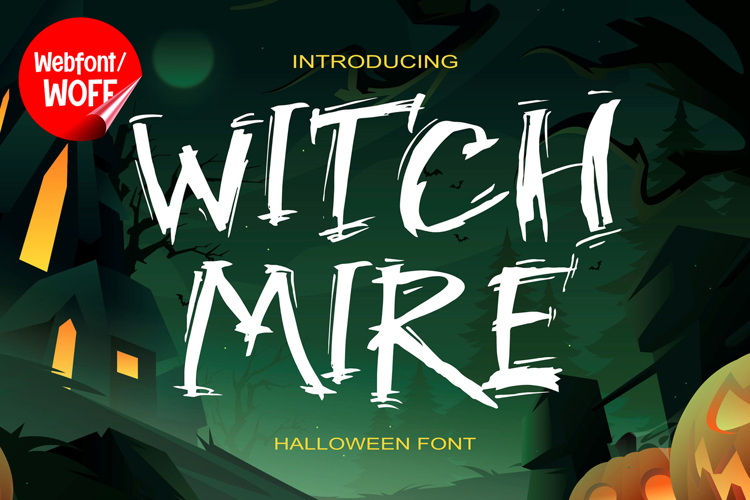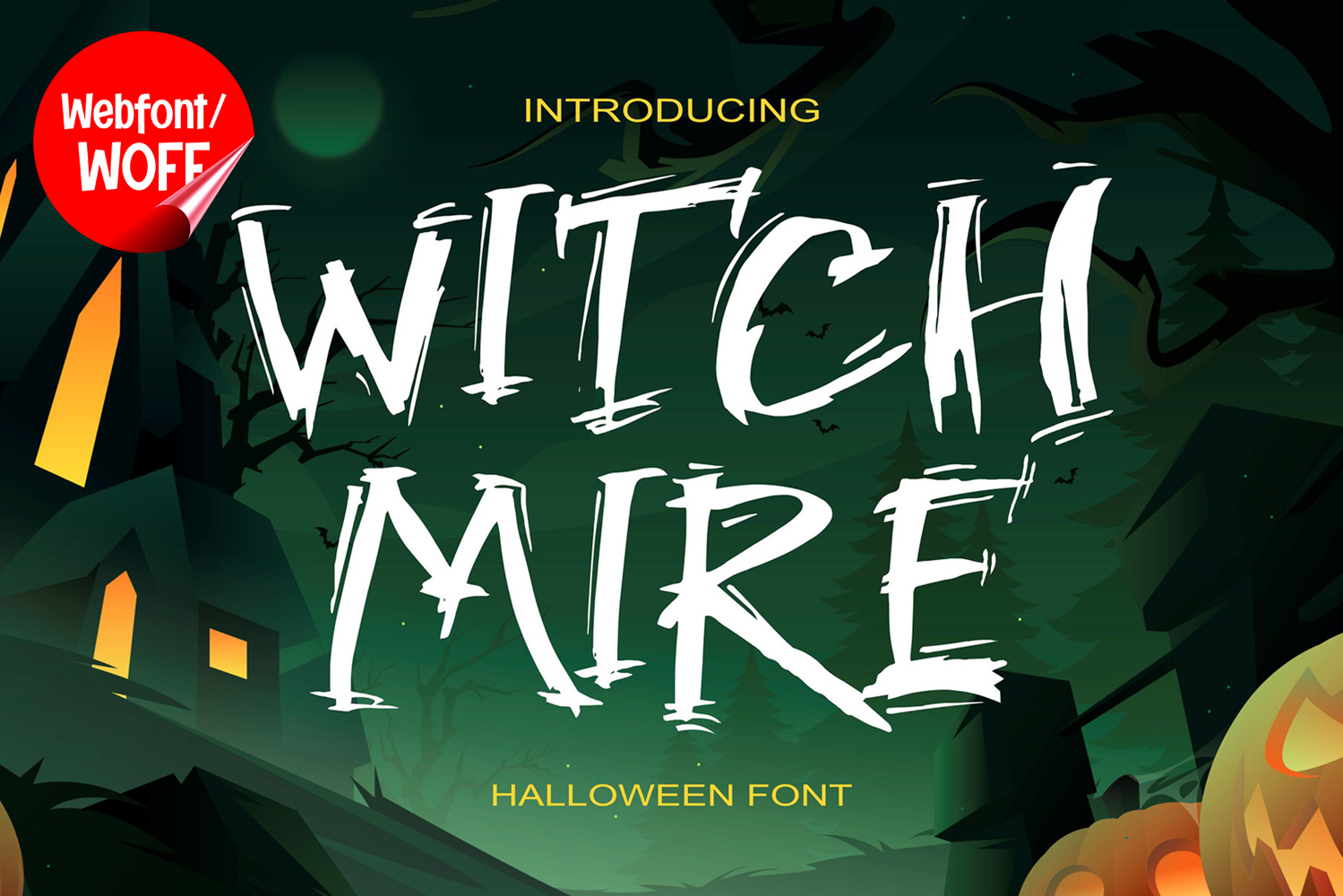
Witch Mire | Halloween Webfont for Spooky Creative Design
Witch Mire is a Halloween webfont designed to bring eerie atmosphere and dark fantasy aesthetics into modern website design. Inspired by haunted forests, witchcraft themes, horror typography, and spooky seasonal visuals, this font features dramatic letterforms and mysterious styling that create a chilling and eye-catching visual identity. It is an excellent choice for projects that aim to deliver spooky visuals with strong Halloween character and cinematic horror appeal.
Witch Mire includes a complete set of uppercase characters designed with Halloween-inspired aesthetics. The letterforms feature sharp edges, eerie curves, and decorative horror details that create a dark and mysterious appearance inspired by haunted stories, witches, and supernatural themes. These characteristics make it ideal for headlines, banners, hero sections, event promotions, and featured content where spooky visual impact is needed.
In addition to letters, the font includes numbers and punctuation, allowing flexible usage across various parts of a website. It works well for Halloween event websites, horror-themed branding, gaming projects, spooky party invitations, streaming graphics, haunted attractions, and seasonal promotional campaigns. Each character maintains a consistent horror style, ensuring a cohesive and unified visual identity throughout the design.
With multilingual support, Witch Mire includes a wide range of accented characters, making it suitable for international websites and global audiences. This ensures content remains clear and visually consistent across different languages while preserving the eerie and decorative horror aesthetic.
The Halloween style of Witch Mire makes it especially suitable for dark-themed websites, horror entertainment projects, fantasy campaigns, and spooky digital branding. Its dramatic appearance and decorative structure create a chilling atmosphere that helps websites stand out in visually competitive environments. The horror-inspired forms add mystery, tension, and cinematic character while maintaining a modern display style.
Despite its decorative and expressive appearance, Witch Mire is designed with readability in mind. The spacing and proportions are carefully balanced to ensure clarity, particularly in display sizes. This allows designers to use the font effectively for impactful headings and short content without sacrificing usability.
Witch Mire is a webfont that combines Halloween-inspired aesthetics with modern digital performance. Its bold forms, eerie styling, and spooky character create a distinctive typographic presence that enhances website design. For projects that require a dark, dramatic, and visually engaging Halloween font, Witch Mire offers a versatile and powerful solution.